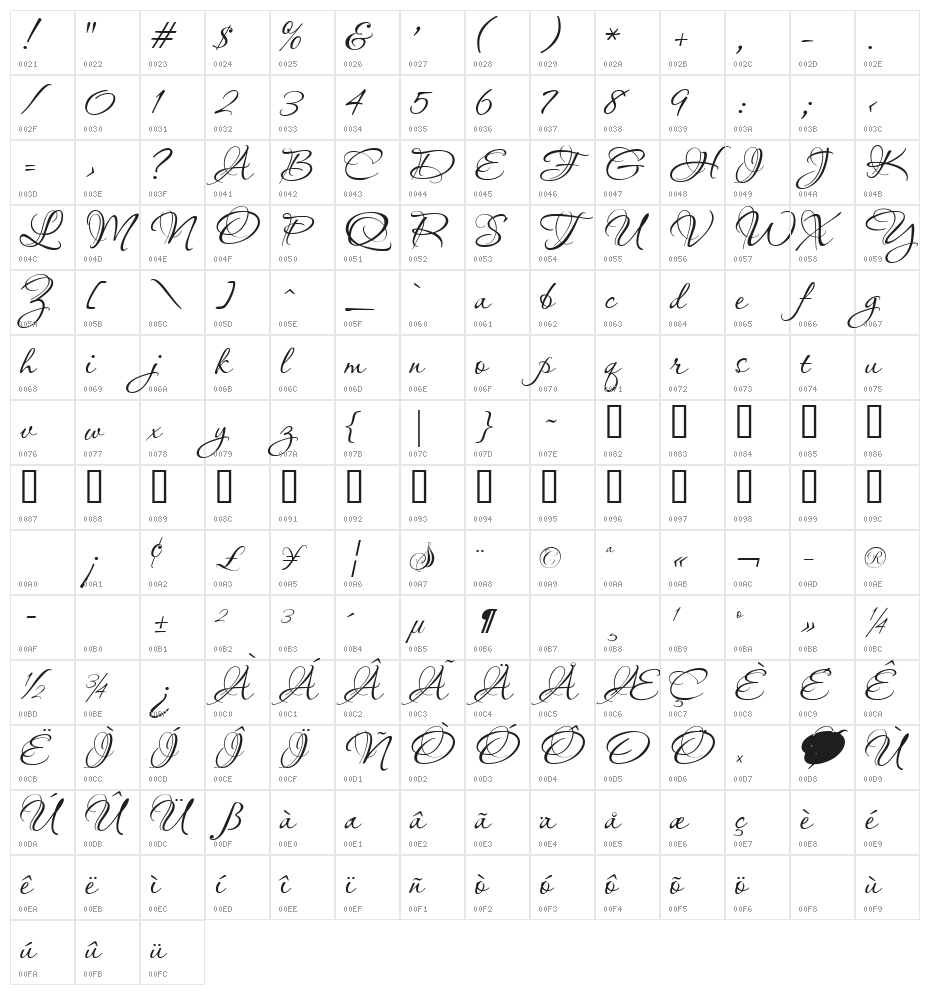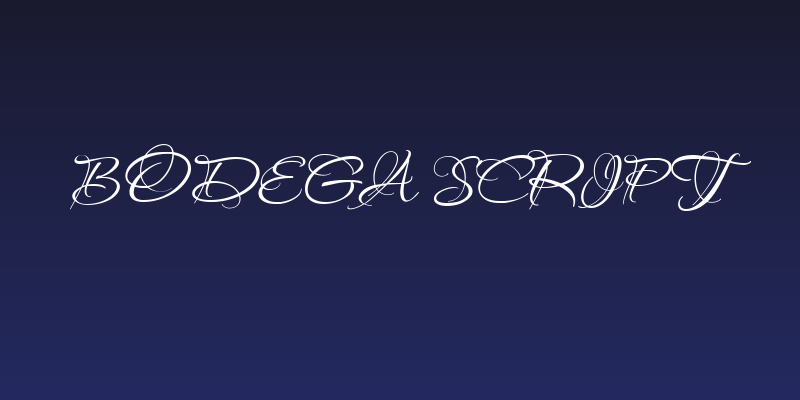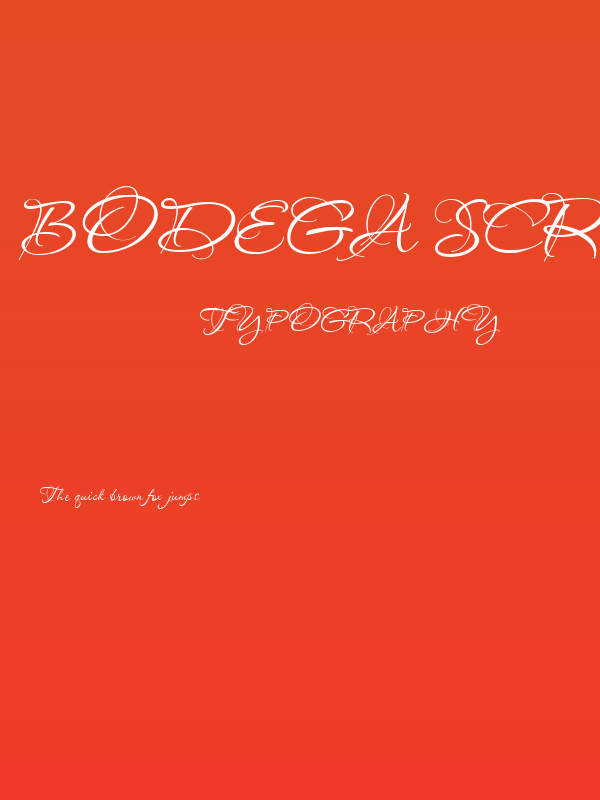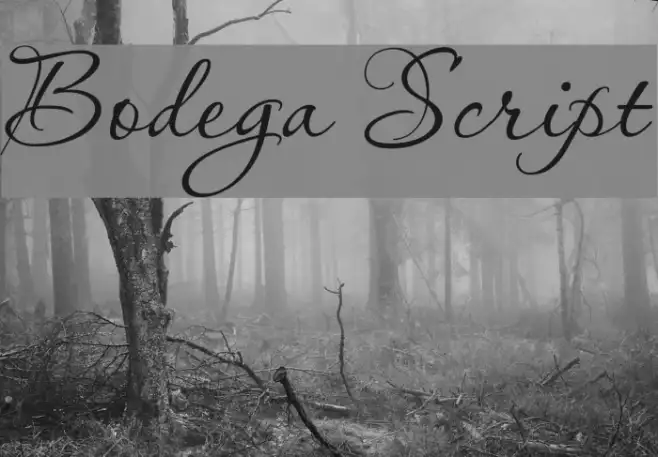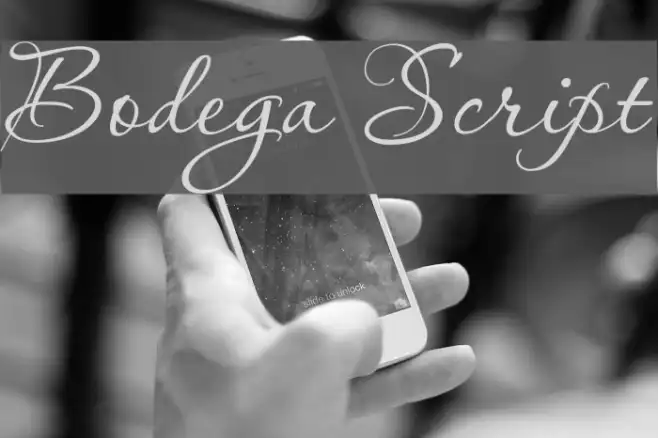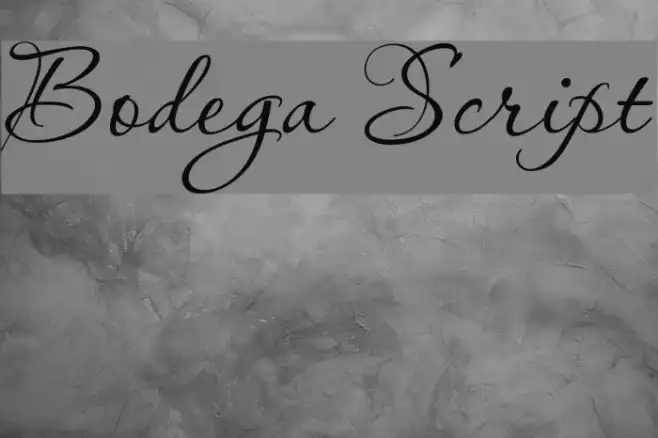
Bodega Script Font
Bodega Script Description
This elegant script font features a flowing, cursive style with intricate loops and flourishes, giving it a sophisticated and artistic appearance. The uppercase letters are particularly ornate, with sweeping curves and decorative elements that enhance their visual appeal. The lowercase letters maintain a consistent style, offering a harmonious blend of readability and decorative flair. The numerals and special characters are designed to complement the overall aesthetic, ensuring a cohesive look across all text elements. This font is perfect for projects that require a touch of elegance and sophistication.